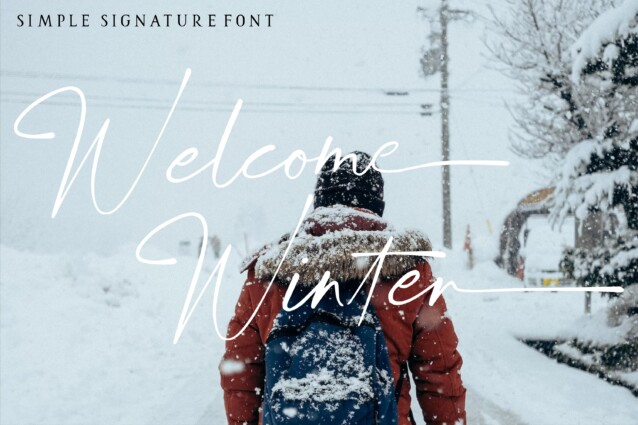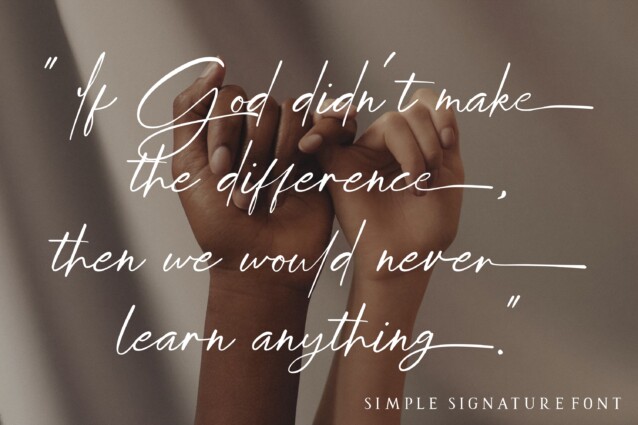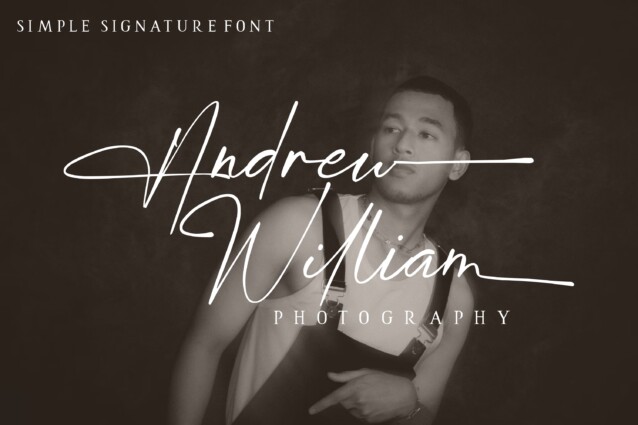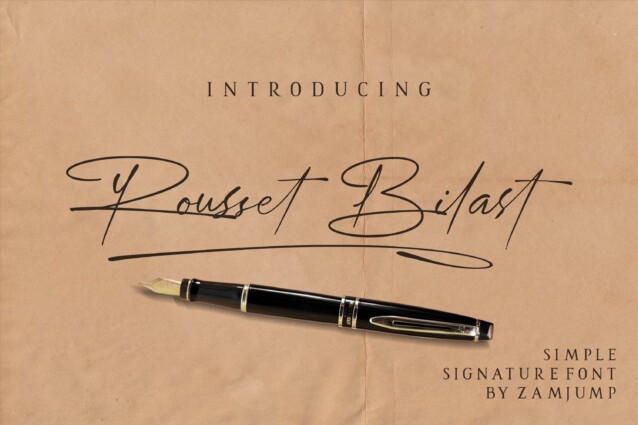
Rousset Bilast Font is modern classy signature font, this font come with beautiful ligature and lovely alternate, ideal for creating handwritten-style logos, wedding stationery, photographer watermarks logos, modern websites, and more. Rousset Bilast features heart connectors, handwritten ligatures, and end swashes for lowercase letters.